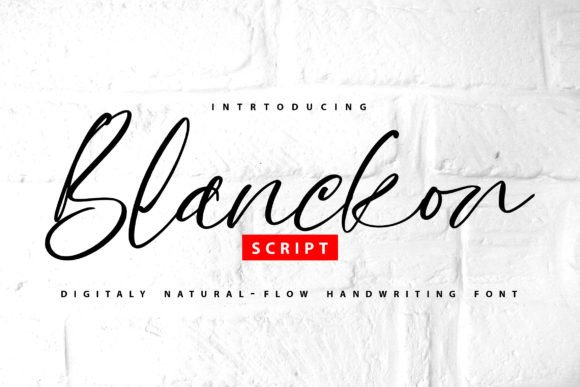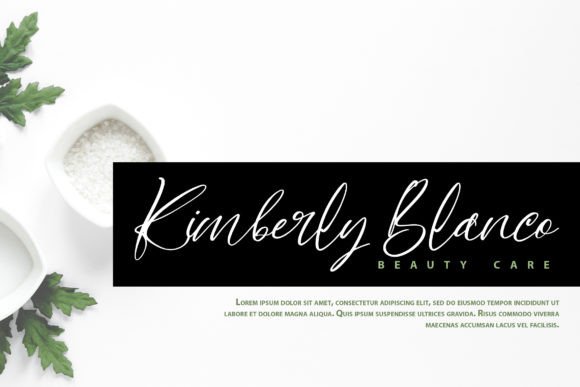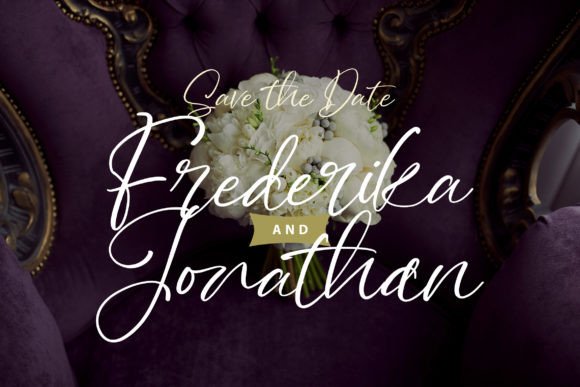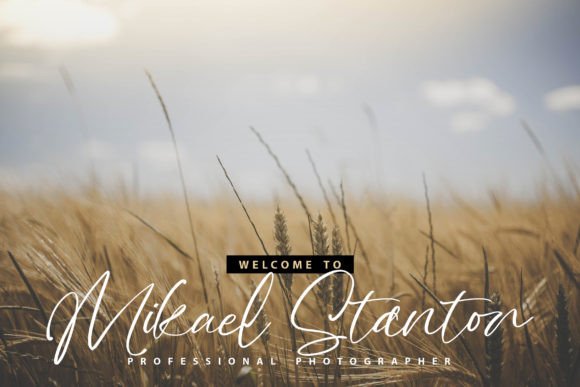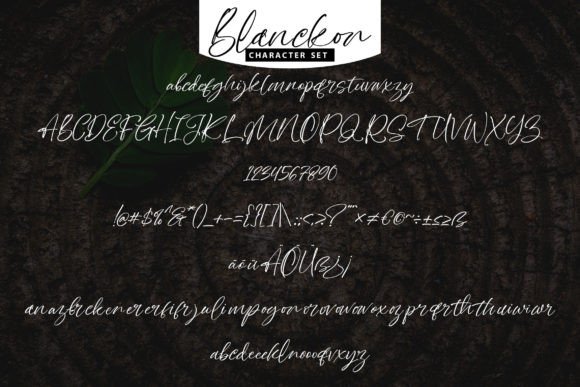
Blanckon Font
About Blanckon Font
**Blanckon: A Charming and Elegant Handwritten Font**
**Blanckon** is a font that seamlessly blends charm and elegance, making it an excellent choice for various design projects. This font shines on wedding invitations, thank you cards, quotes, greeting cards, logos, business cards, and any other designs that benefit from a handwritten touch.
**Blanckon** stands out with its beautifully crafted handwritten letterforms, exuding a sense of charm and sophistication. Each character is meticulously designed, making it an ideal choice for projects that demand a touch of elegance and personalization.
This font’s versatility makes it suitable for a wide range of applications. Whether you’re working on wedding stationery, branding, quotes, or any other creative endeavor, **Blanckon** adds a level of refinement and personalization to your work.
In wedding invitations and thank you cards, this font enhances the romantic and personalized aspects of your projects, setting the stage for memorable celebrations.
For branding and logos, **Blanckon** ensures your visual identity conveys a sense of elegance and personal touch, leaving a lasting impression on your audience.
In conclusion, **Blanckon** is more than just a font; it’s a design asset that brings charm and elegance to your creative projects. Whether you’re designing for special occasions, branding, or various other contexts, choose **Blanckon** to infuse your work with its unique and refined charm. Embrace its timeless style, and let your creativity flourish with sophistication and elegance.